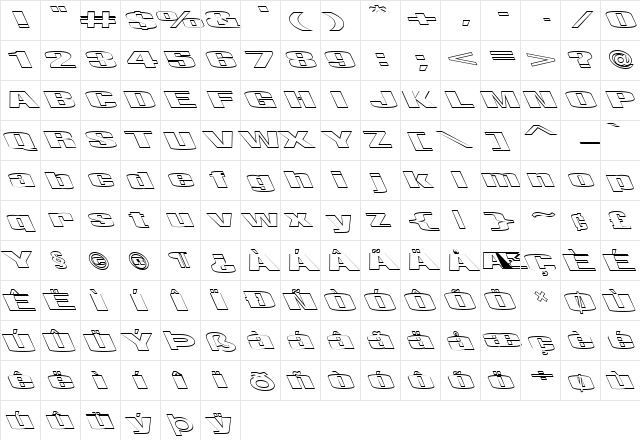
FZ BASIC 9 HOLLOW LEFTY Normal
Design Context for FZ BASIC 9 HOLLOW LEFTY Typeface
FZ BASIC 9 HOLLOW LEFTY is a composed and adaptable typeface that performs quietly and consistently across a wide range of design contexts.